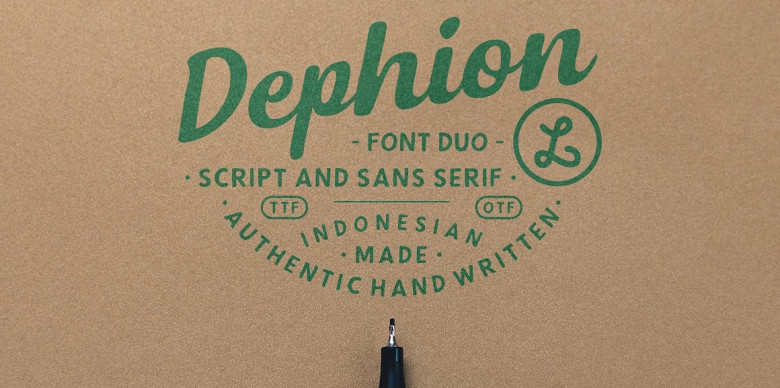
Dephion Script Font
Introducing Dephion Font, it is was designed and shares by Locomotype. Dephion, one of the handmade fonts to give a casual and natural impression that brings modern style calligraphy made in a very manual way. Dephion presents three fonts: Dephion script regular, slanted and Dephion sans. You can pair them to create a variety of attractive designs with a sense of casual.
Dephion perfectly for logos, headers on blog or magazine, branding for personal or company, product packaging, business cards, album cover, etc.